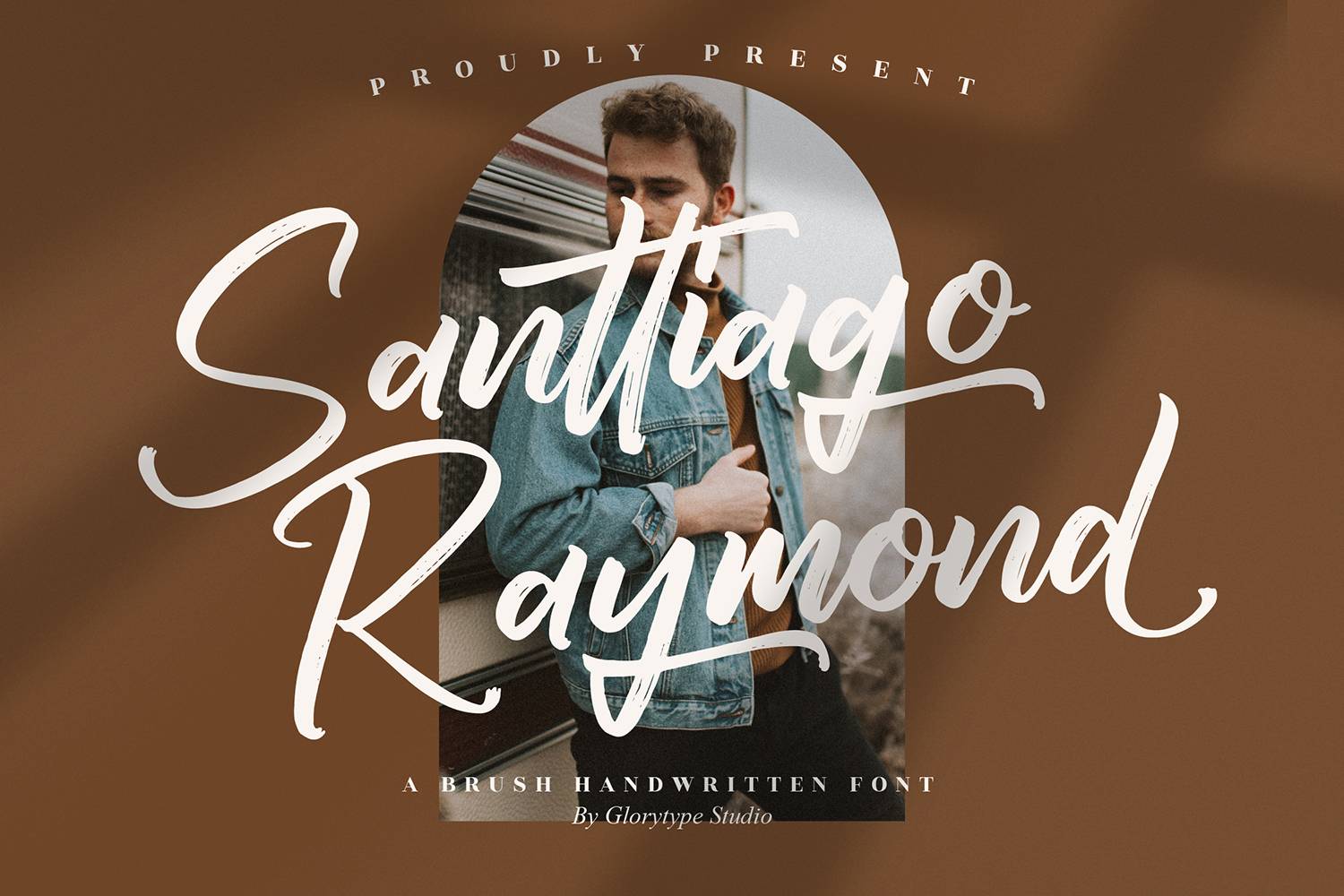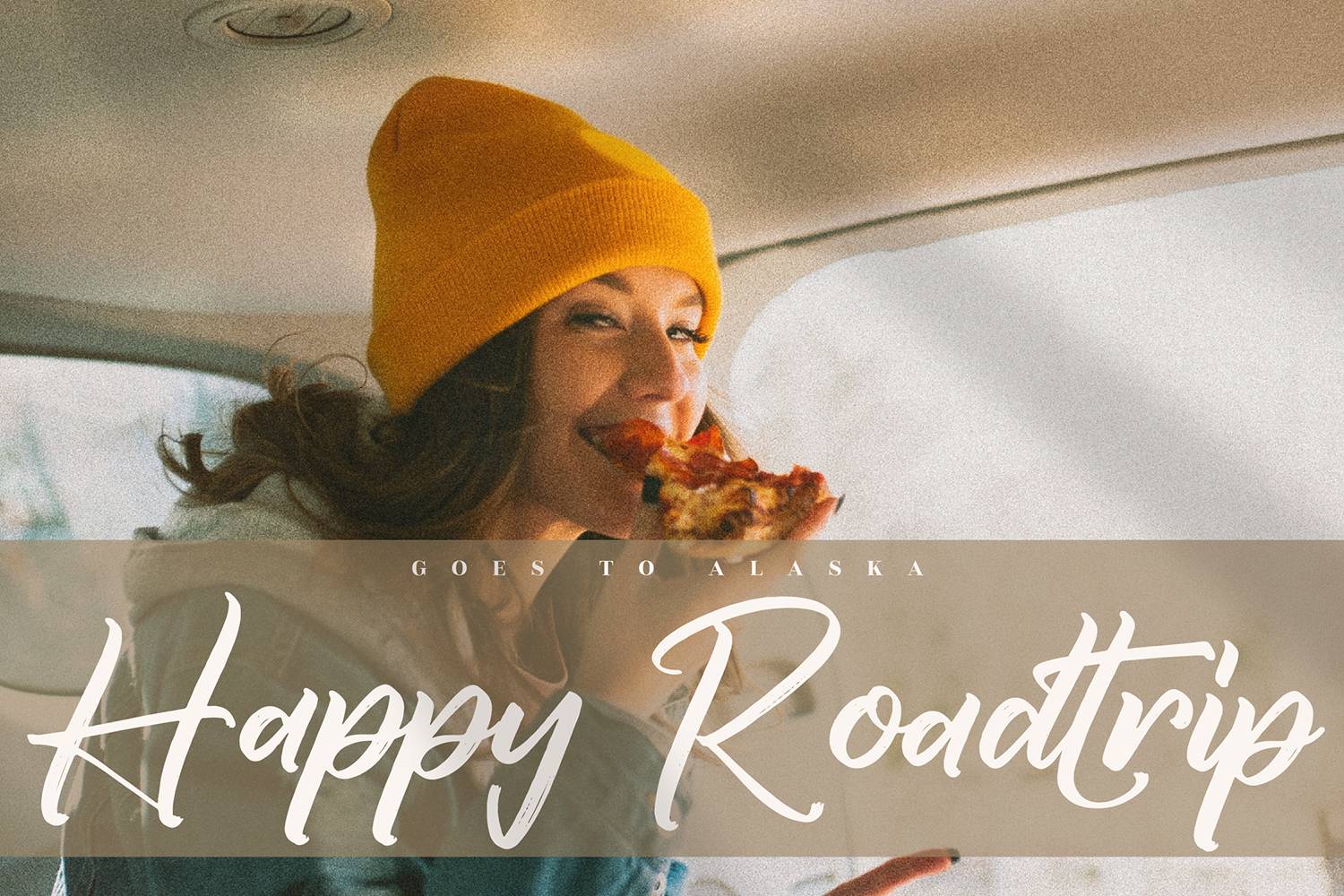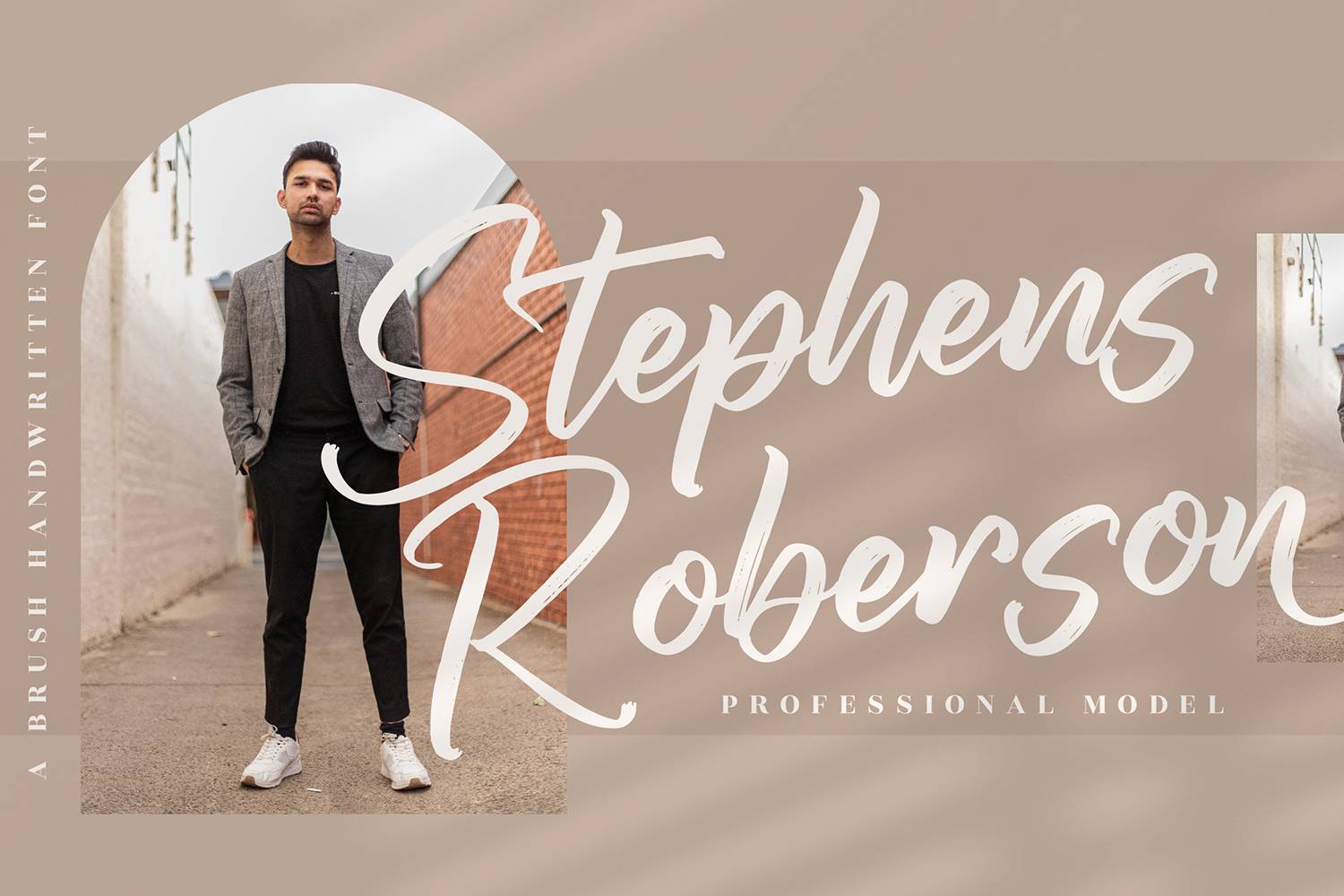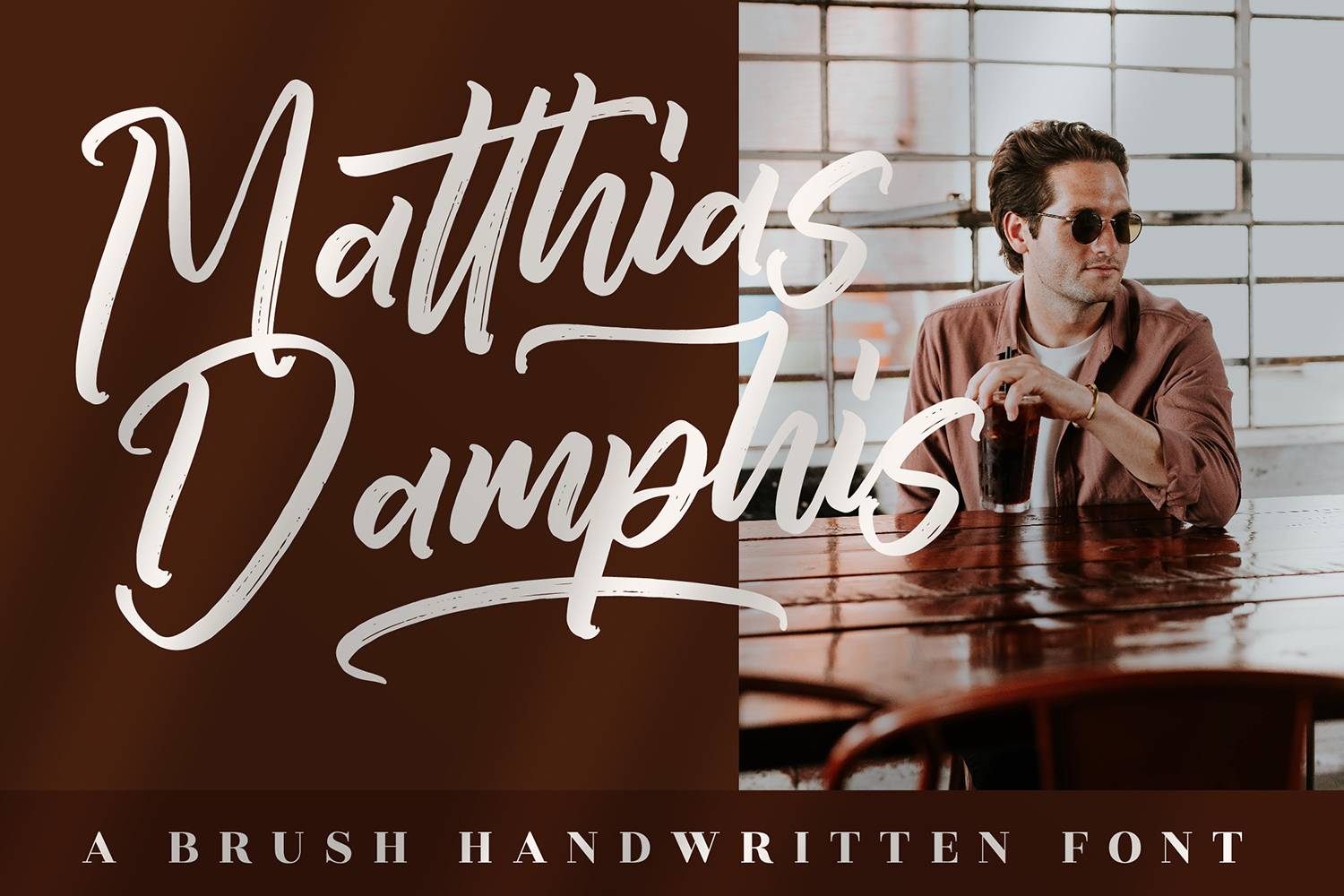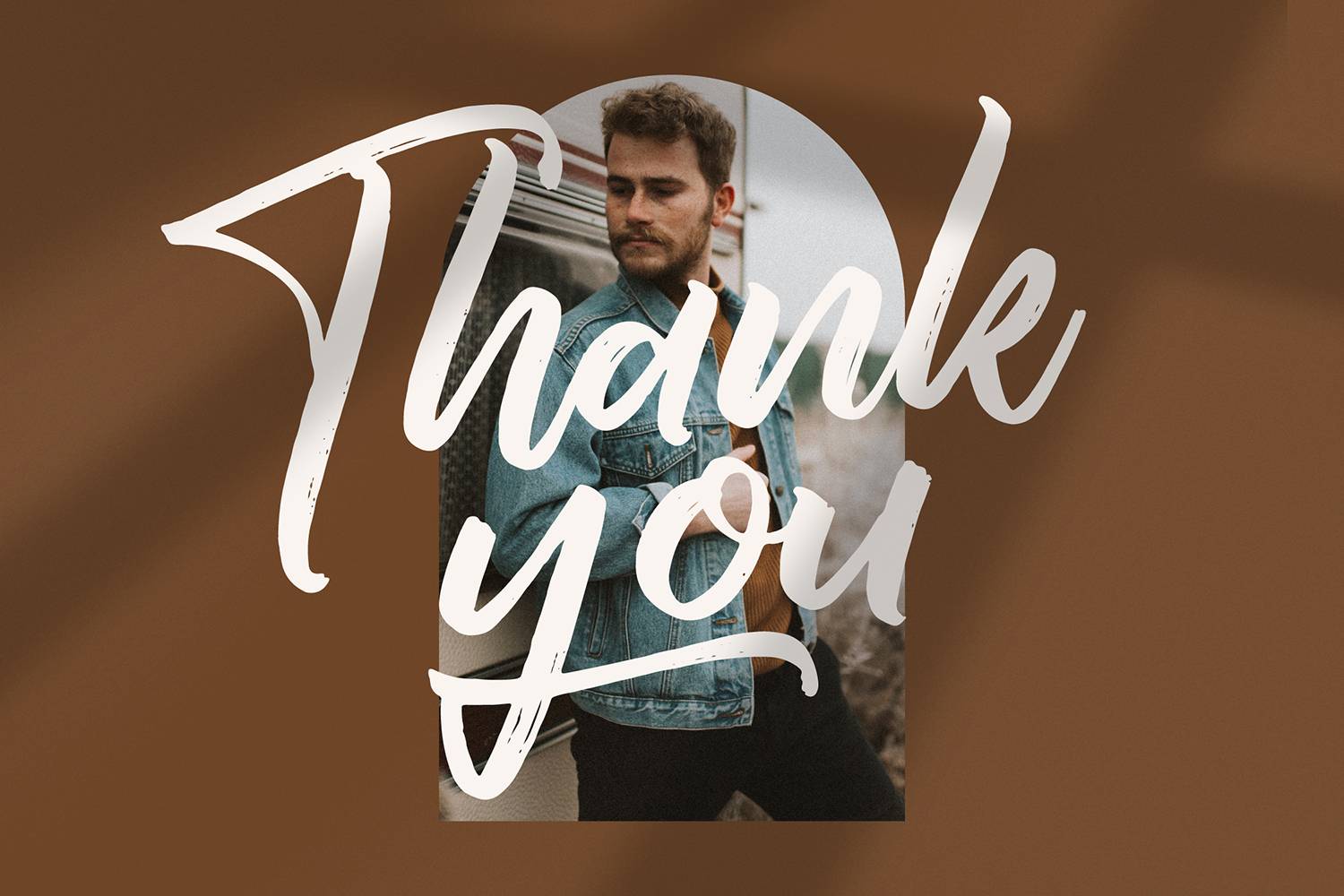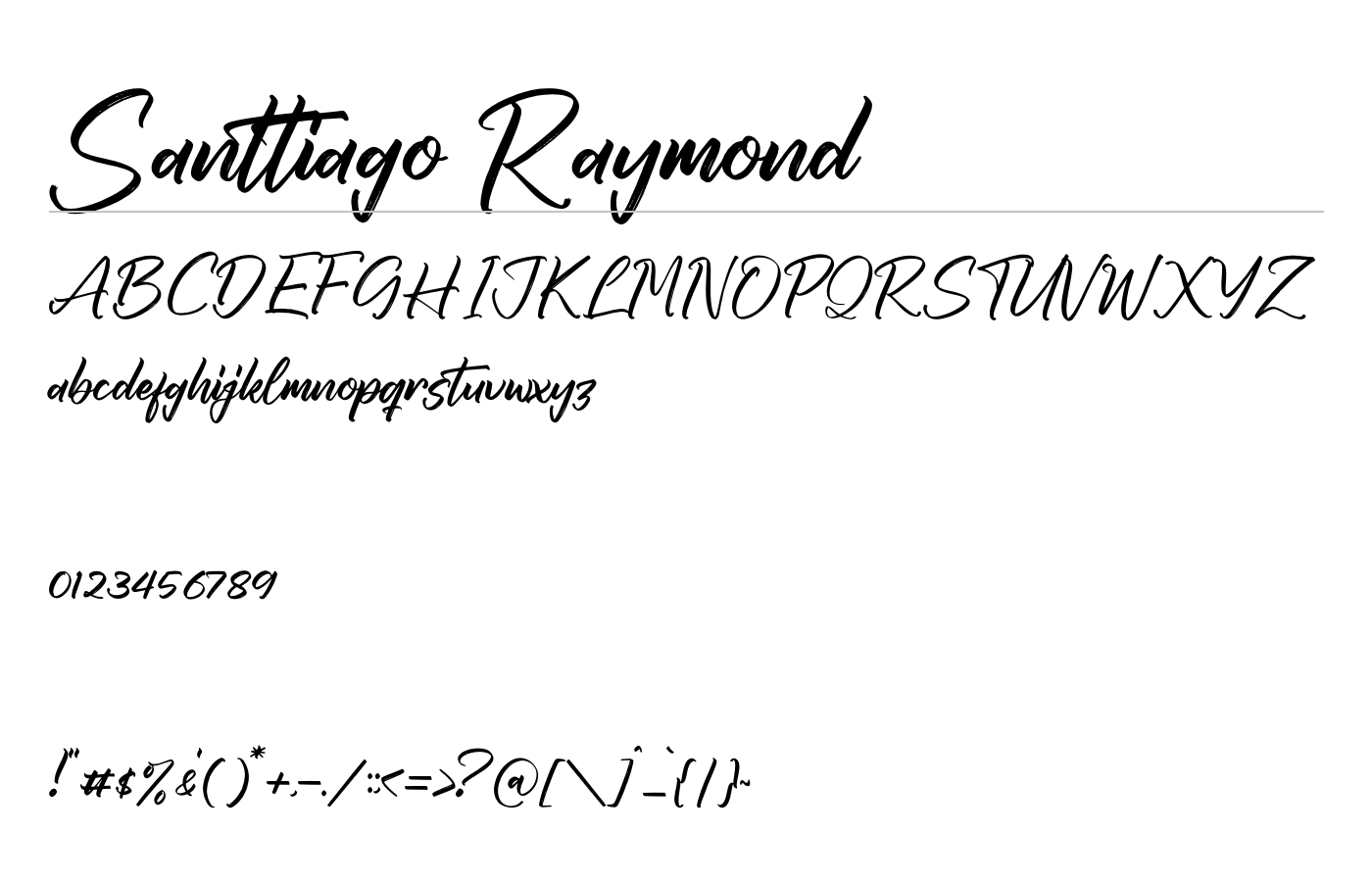
Santtiago Raymond is a stylish script font featuring fluid, hand-drawn letterforms with a natural, elegant flow. Its calligraphic strokes and moderate contrast create a sophisticated yet approachable feel, making it perfect for branding, invitations, and creative projects that seek a personal, refined touch. This font works especially well in logos and headlines where a graceful, artistic look is desired.
Santtiago Raymond Font
About Santtiago Raymond Font